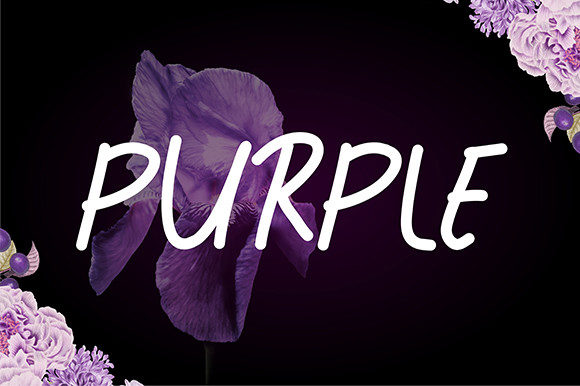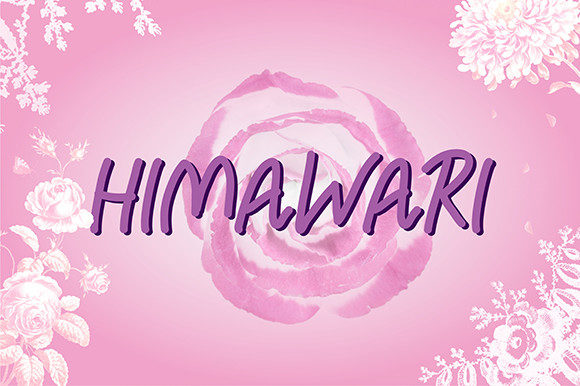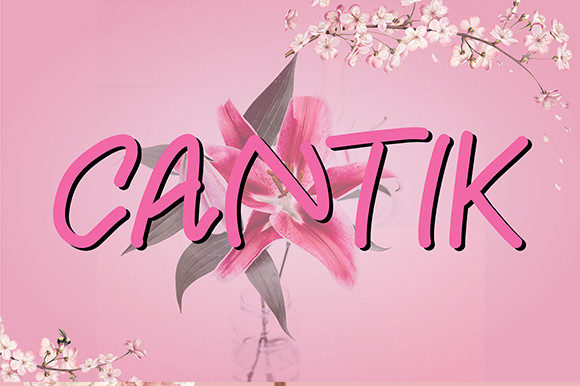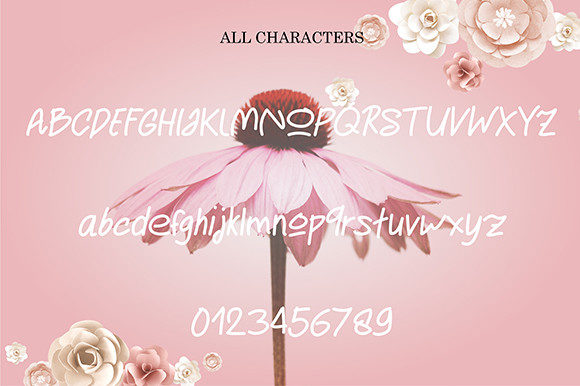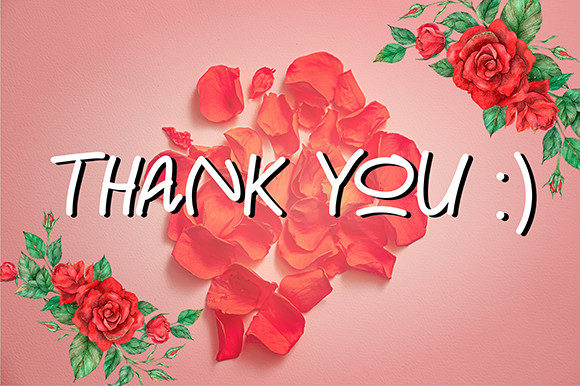
Introduction to Pelangi Font
Remember that moment when you’re brainstorming ideas for a creative project and you can’t quite put your finger on the right font to match the vibe? You scroll through font libraries, searching for something that captures the essence of your design, and suddenly, you stumble upon it – the perfect font that elevates your work to the next level. For many designers, this moment is what makes the design process truly magical.
Enter the Pelangi Font, a simple, quirky, and adaptable handwritten font that has become a go-to choice for designers seeking to infuse their creations with a relaxed touch. With its informal style and casual vibe, the Pelangi Font is a valuable design resource that can breathe life into even the most mundane projects.
Pelangi Font
- High-quality design resource ideal for creative projects, featuring a unique and vibrant aesthetic.
- Features a playful and colorful design, making it perfect for children’s books, educational materials, and other creative projects.
Honest Review: Pelangi Font
I recently stumbled upon the Pelangi Font, and I must say it’s a breath of fresh air in the world of design resources. This font is perfect for any creative project that requires a high-quality, eye-catching typography. As a designer, I appreciate the effort that went into creating this beautiful font.
Here are some aspects that I think work well: ✨
- Unique and creative design: The Pelangi Font has a distinctive look that sets it apart from other fonts.
- High-quality graphics: The font’s high-quality graphics make it perfect for print or digital use.
- Transparent background: The transparent background option allows for seamless integration with any design.
However, I do have some concerns: ⚠️
- Limited font sizes: The font only comes in a few sizes, which may limit its versatility.
- No bold or italic options: The font does not have bold or italic options, which may make it less suitable for certain design projects.
Pelangi Font: A High-Quality Design Resource
Tips for Getting the Most Out of Pelangi Font